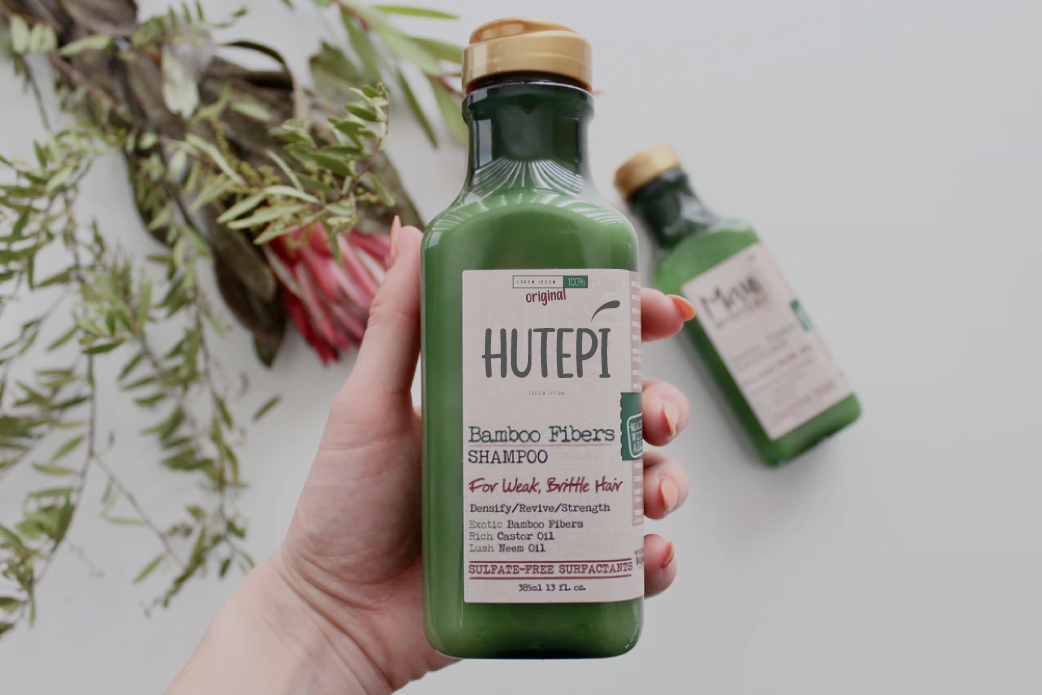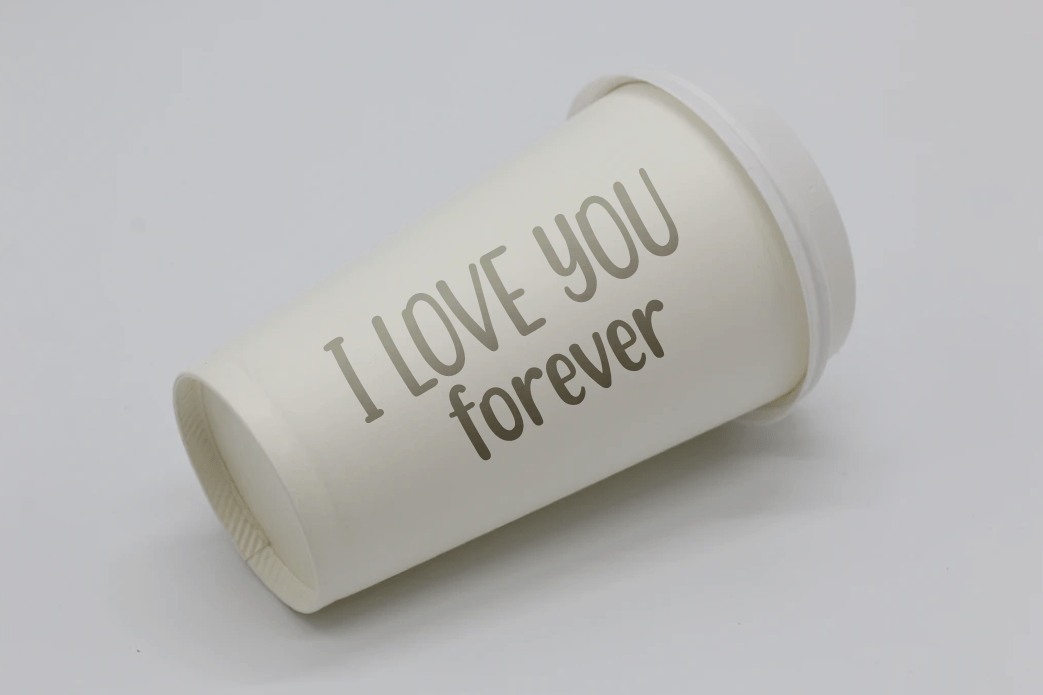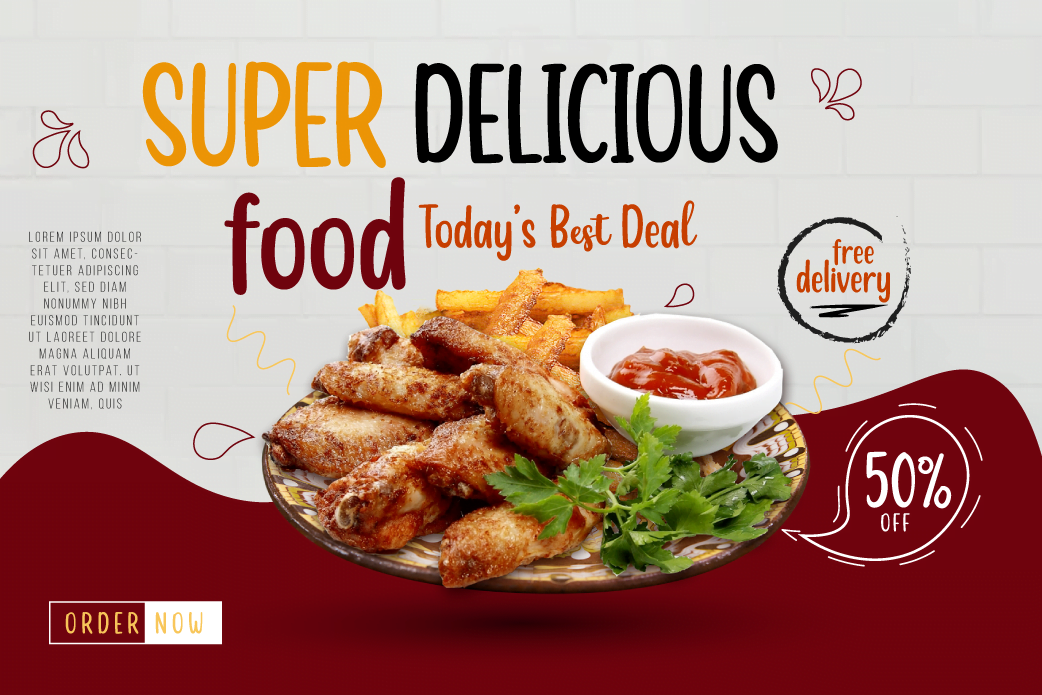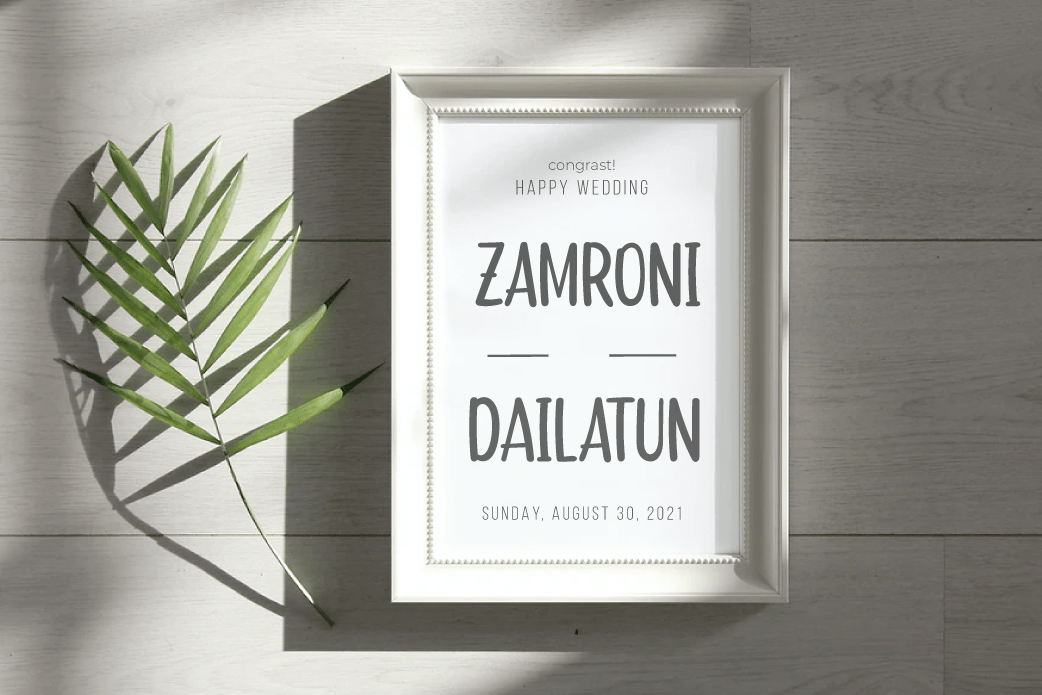
- BEWITCHED
BEWITCHED is a handwriting font that has a distinctive feel in its writing, use this font for your designs and make it easy for people to remember at first glance. so that they always remember the message in each of your designs
This font is designed with a natural touch of handwriting which is refined to create a portion and composition that suits your needs. So this font is suitable for craft, children’s writing, adventure posters, food banner titles, wedding invitations, product packaging logos, quotes, social media page covers, furniture banner headlines, book covers, and much more.